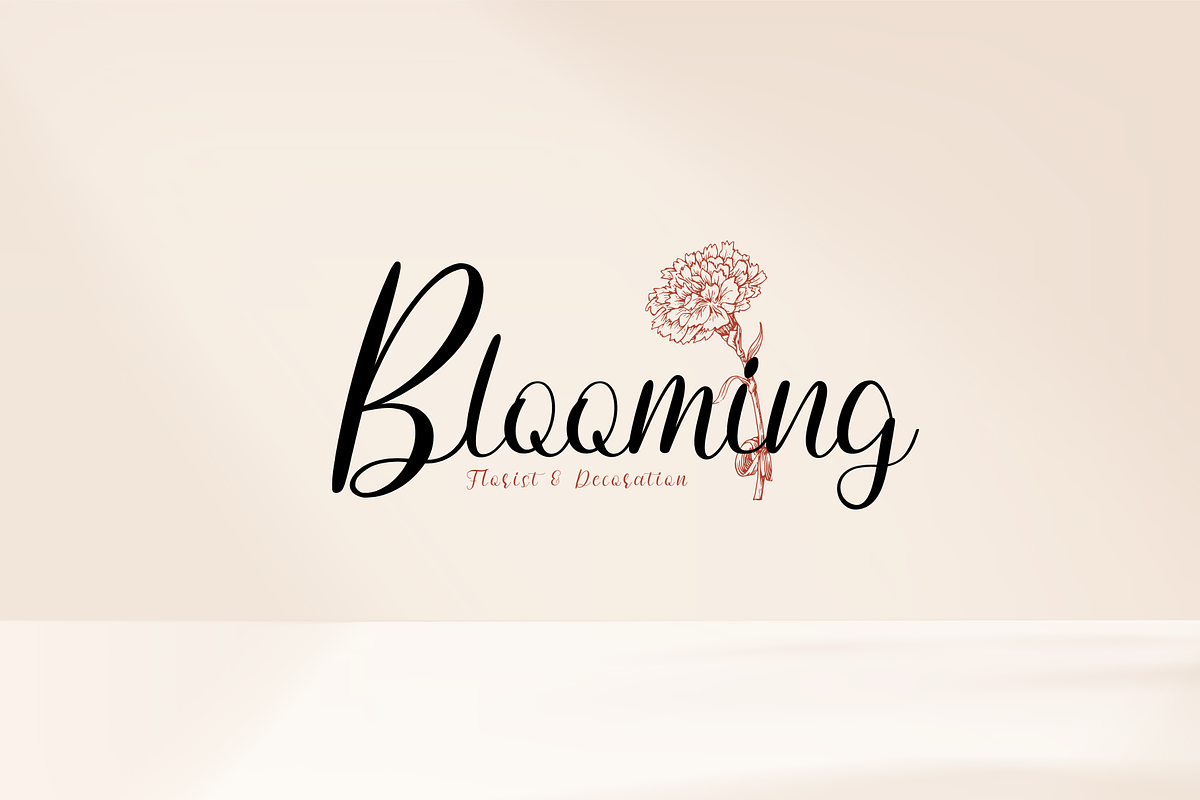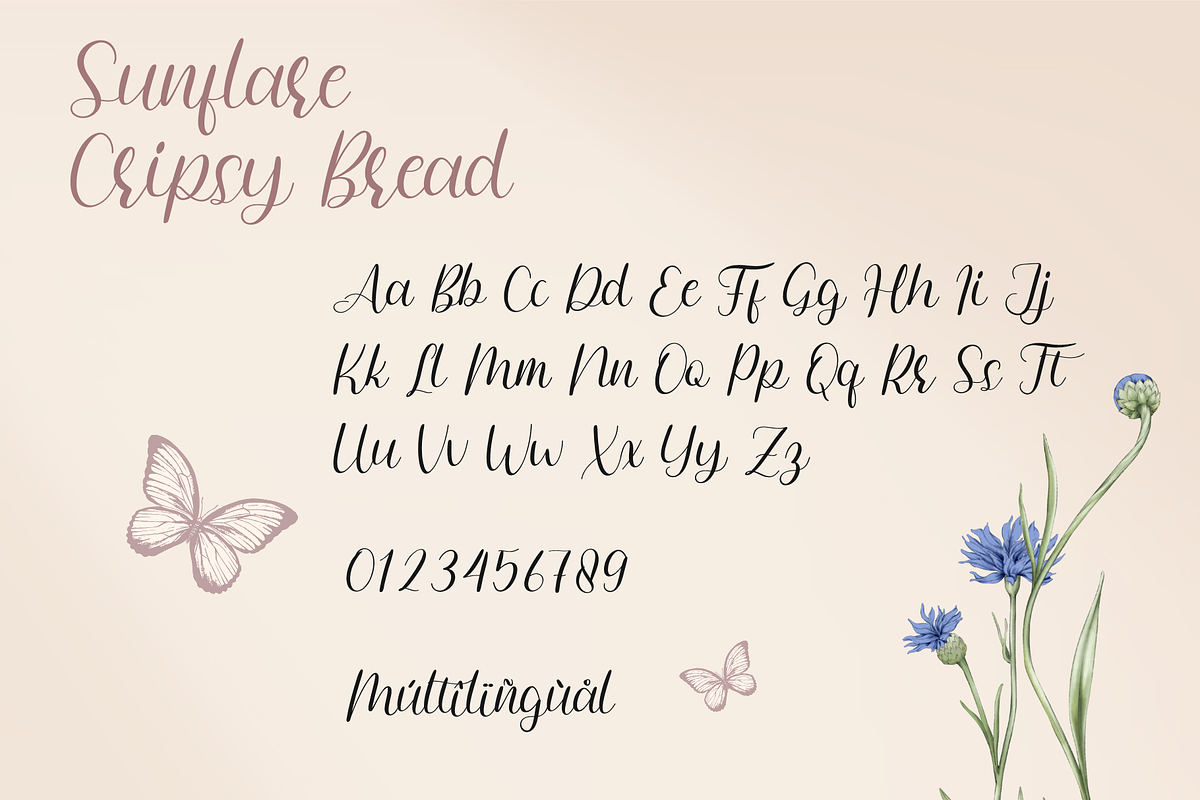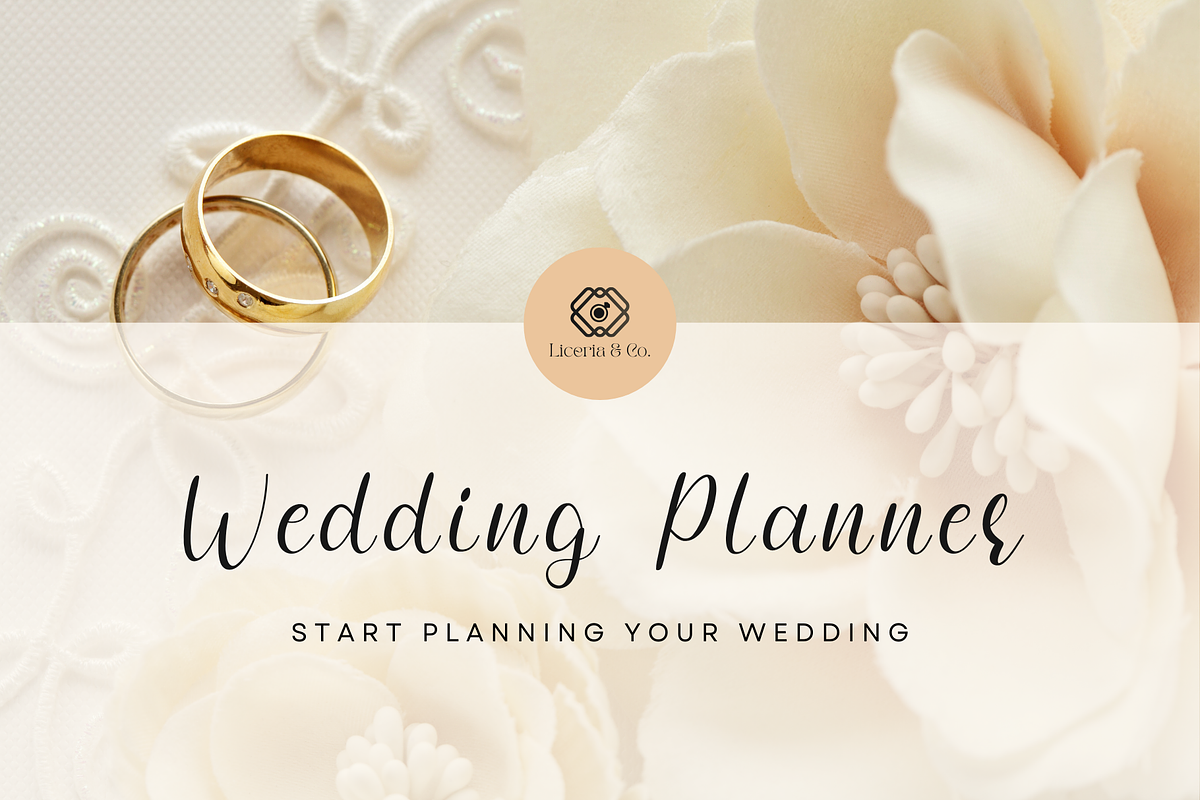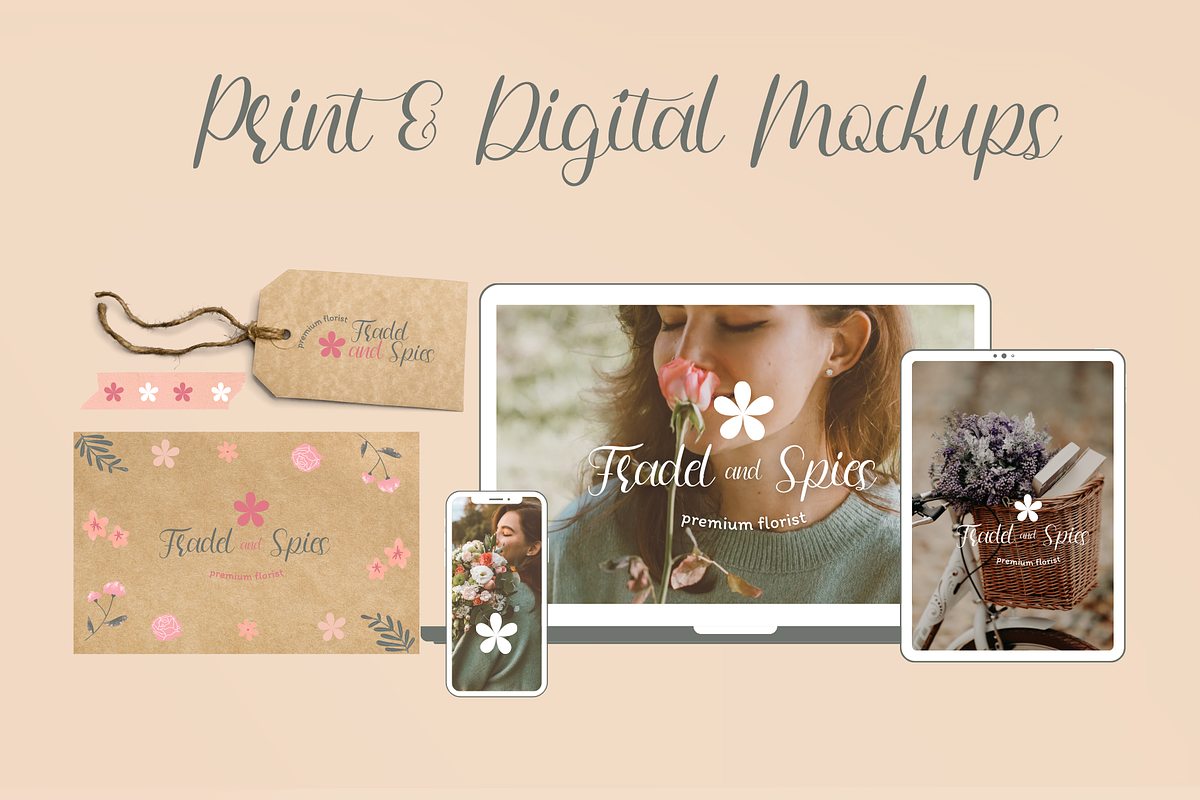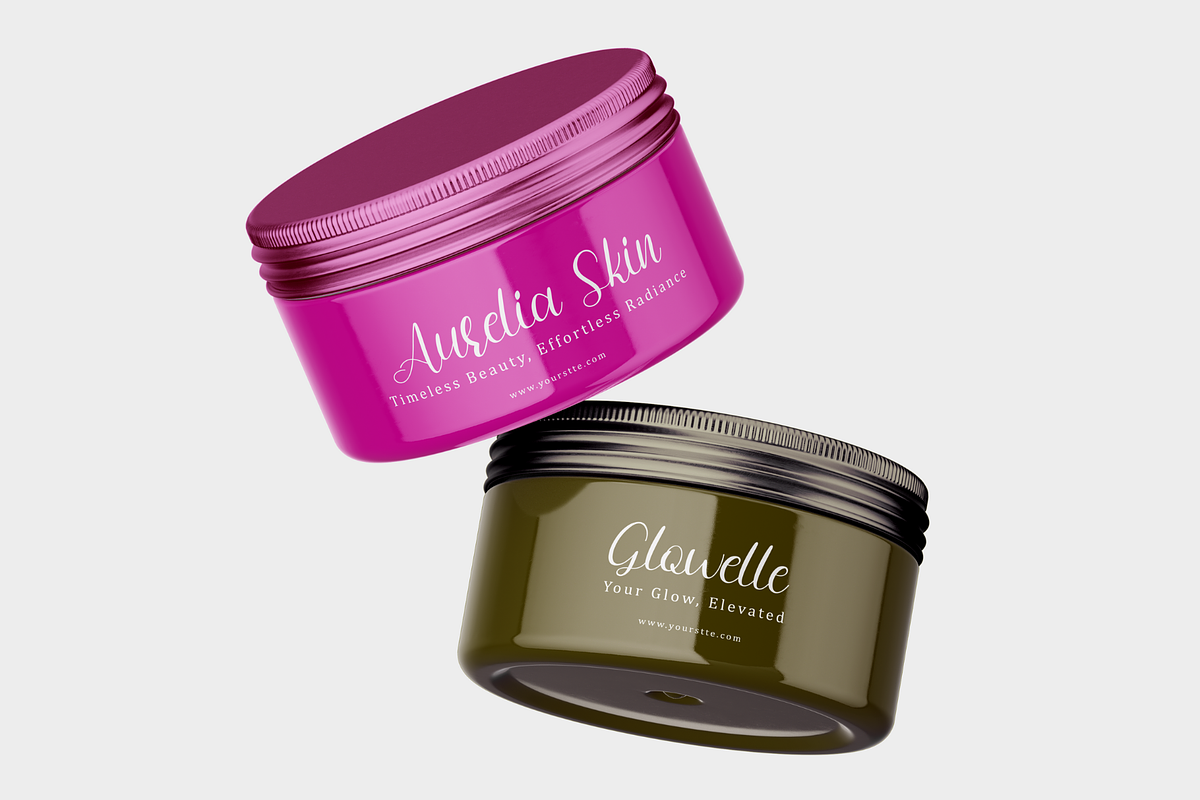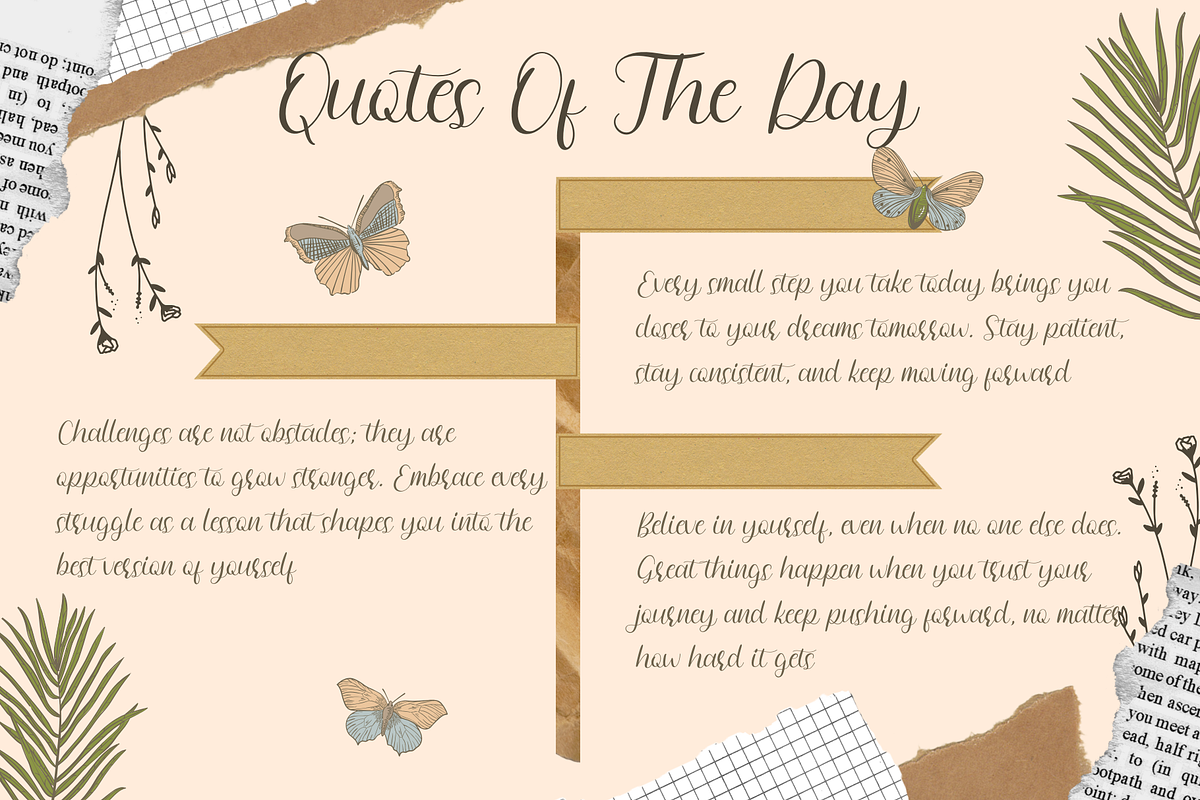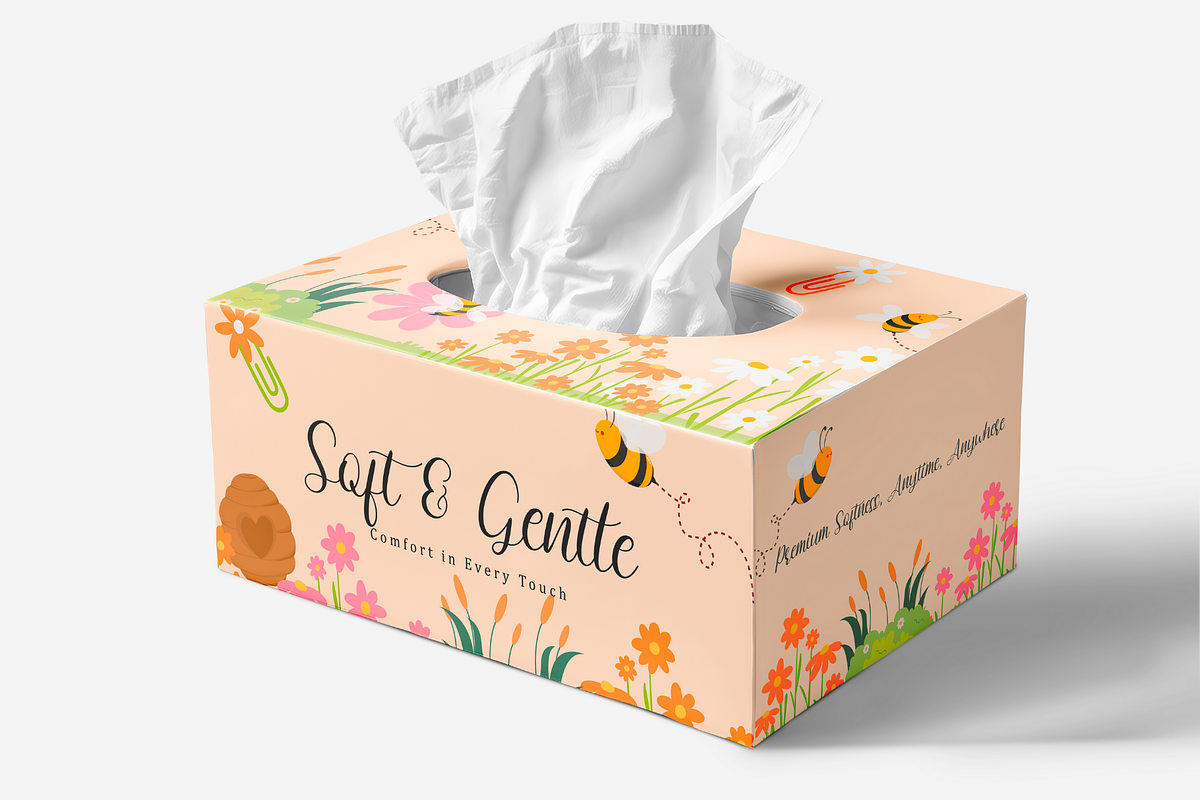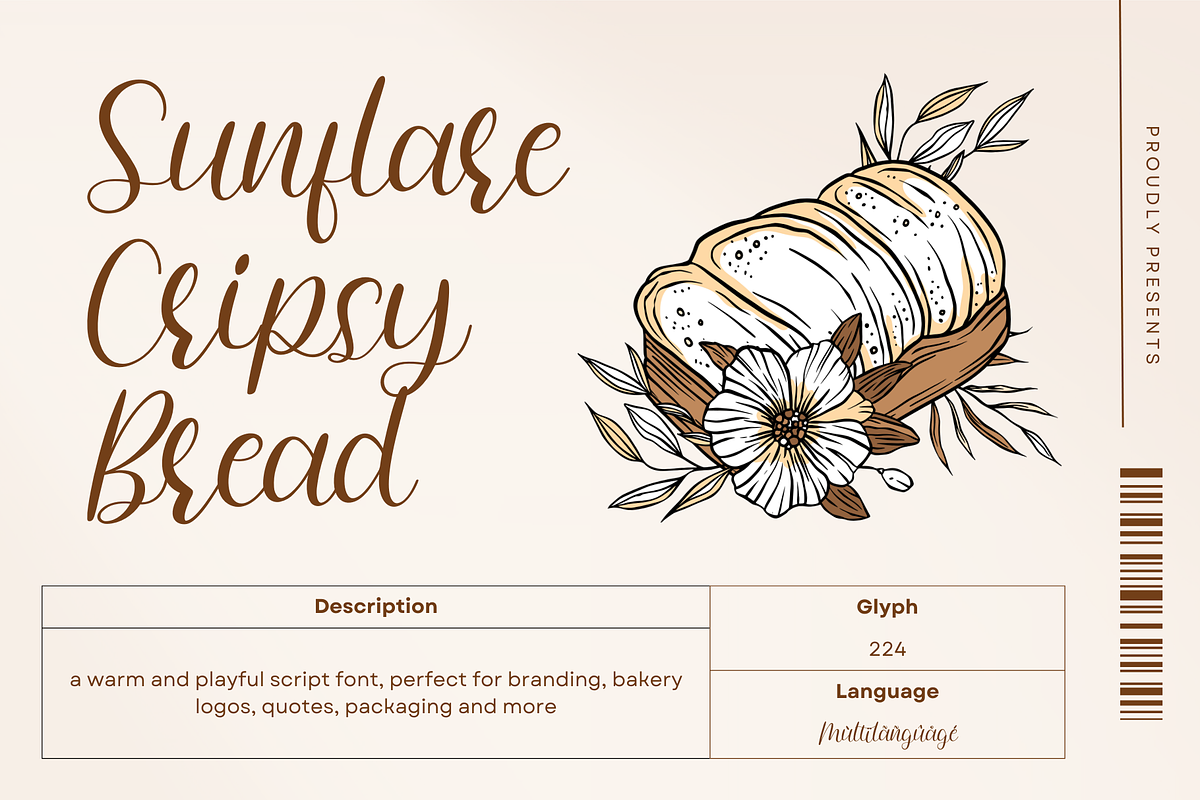
Sunflare Crispy Bread
Sunflare Cripsy Bread is a warm and playful script font with a handmade feel. Its smooth curves and lively strokes bring a charming, personal touch to any design. Perfect for branding, packaging, bakery logos, quotes, and social media, this font adds a delightful and inviting look to your projects.
- Multilingual support for a variety of languages
- OpenType features, including ligatures
Let Sunflare Cripsy Bread bring a cozy and cheerful vibe to your next creation!